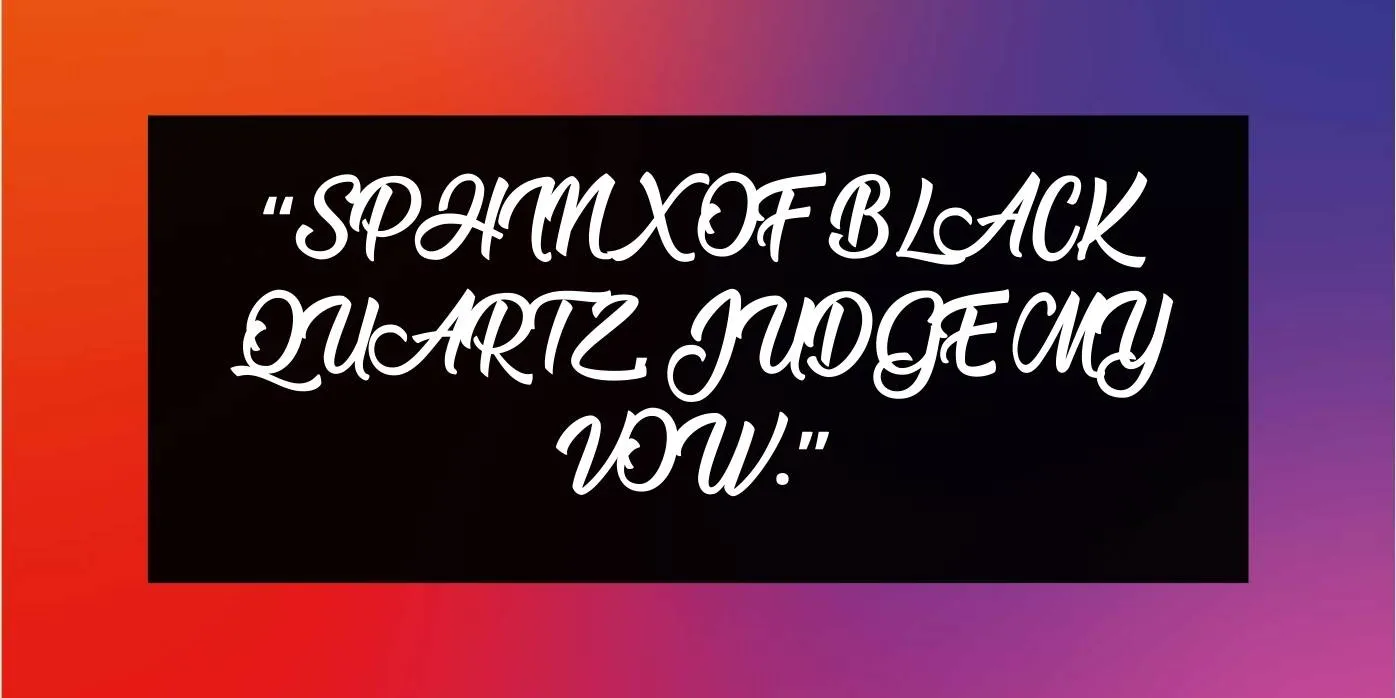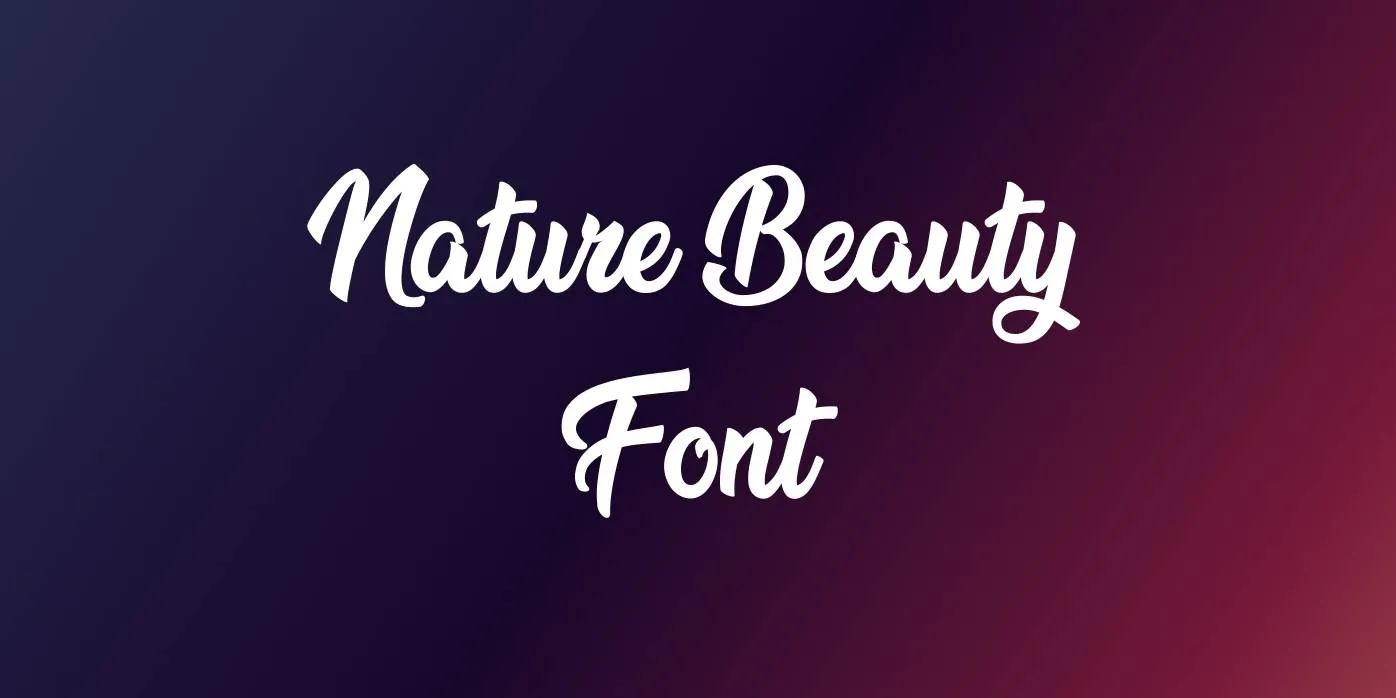
Nature Beauty Font
Nature Beauty Font is a calligraphy typeface that was designed to be used for nature-themed designs and projects. The font has a very natural look and feels to it, and it is perfect for any project that needs a touch of nature. The Font was created by designer Ryoichi Tsunekawa, and it was first released in 2001. The Font is available in both regular and italic versions, and it includes many different characters, including numbers, punctuation marks, and symbols.